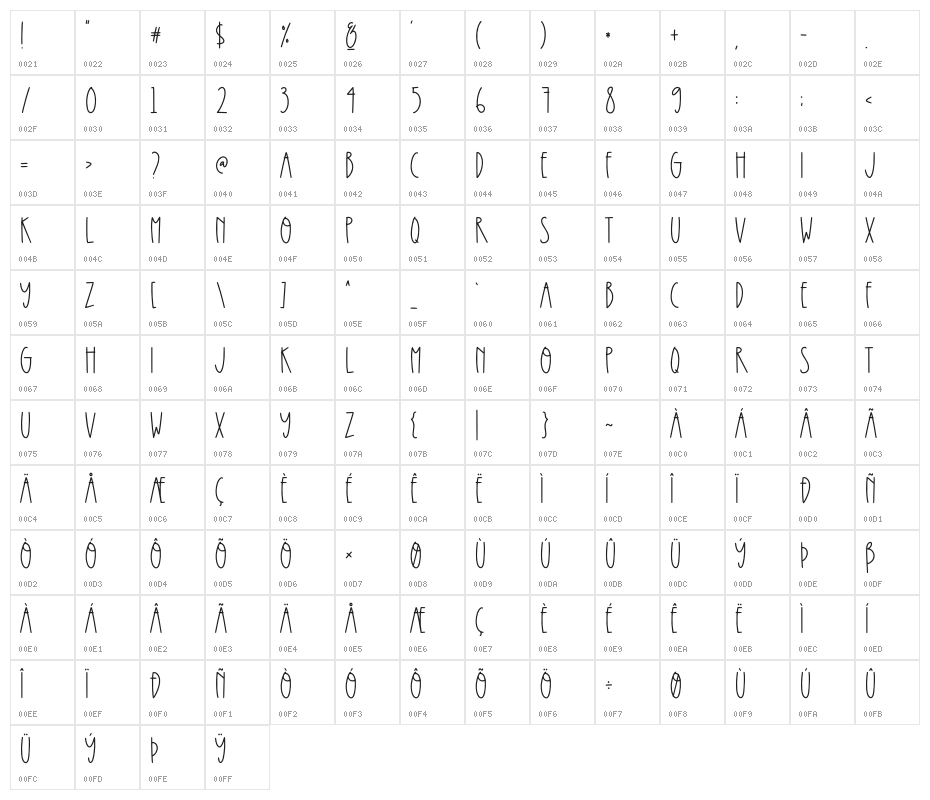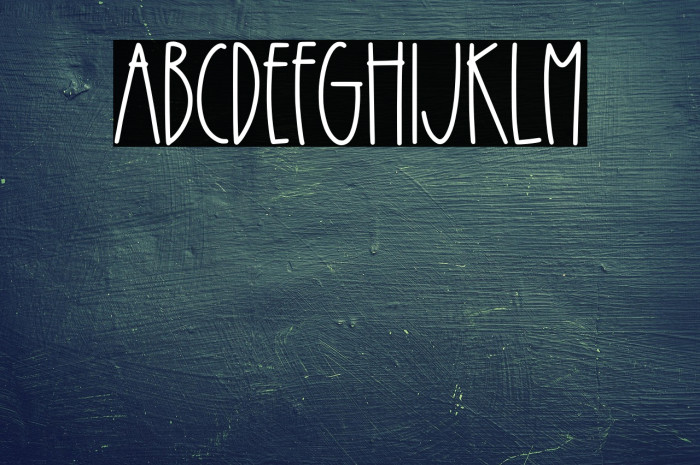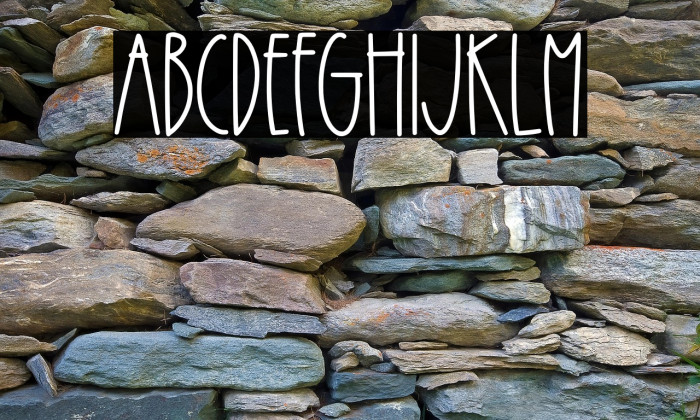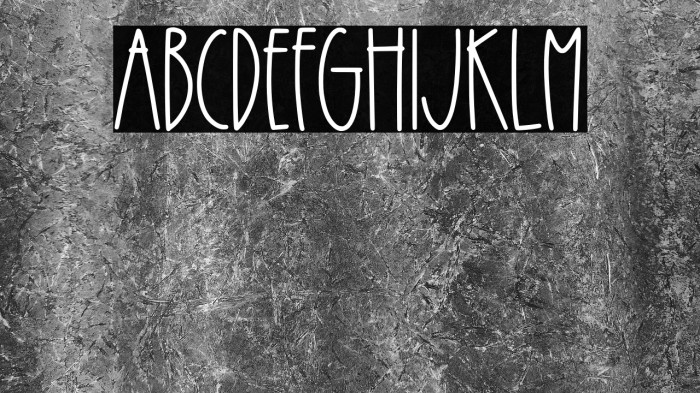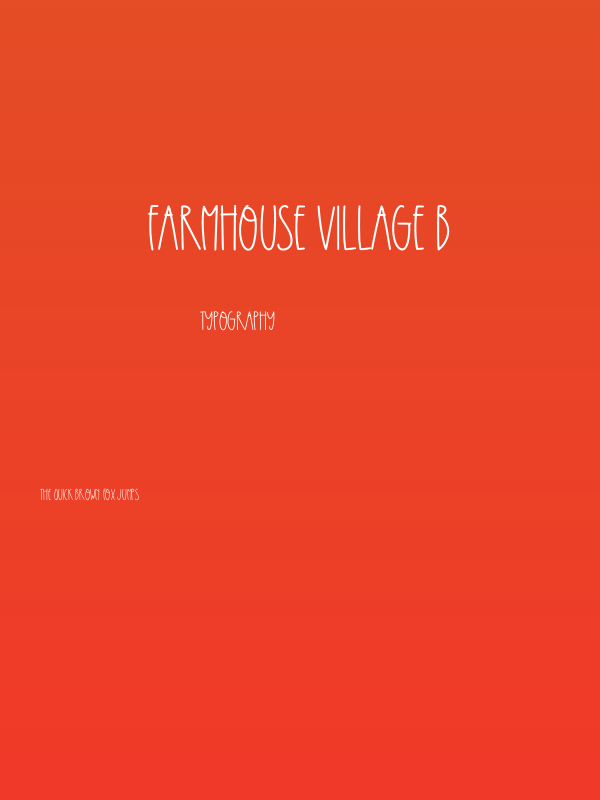
Farmhouse Village B Font
Farmhouse Village B Description
This font features a playful and whimsical handwritten style, characterized by tall, narrow letters with a slight slant. The strokes are consistent in width, giving it a clean and uniform appearance. The uppercase and lowercase letters maintain a cohesive look, with rounded edges and a casual feel. Numbers and special characters are crafted with the same playful touch, making the font suitable for informal and creative projects. Its simplicity and charm make it ideal for designs that require a personal and approachable touch.
| Use Case | Headlines, Invitations, Casual Branding |
| Proposed Projects | Ideal for greeting cards, children's books, DIY projects, and casual branding. |